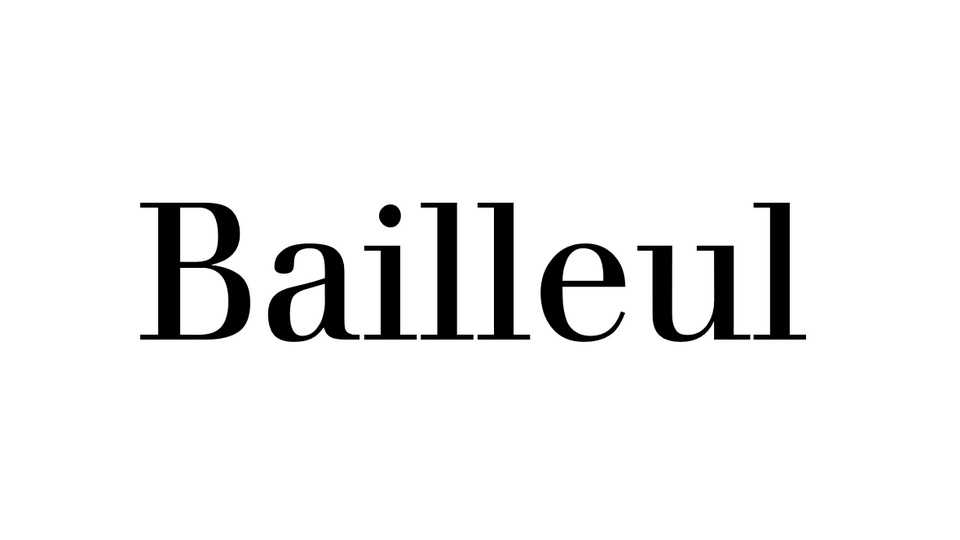
Download Bailleul Roman font, a Didone serif typeface loosely inspired by Cicéro Bailleul from a 19th century Parisian foundry.
Designer: Guillaume Litaudon